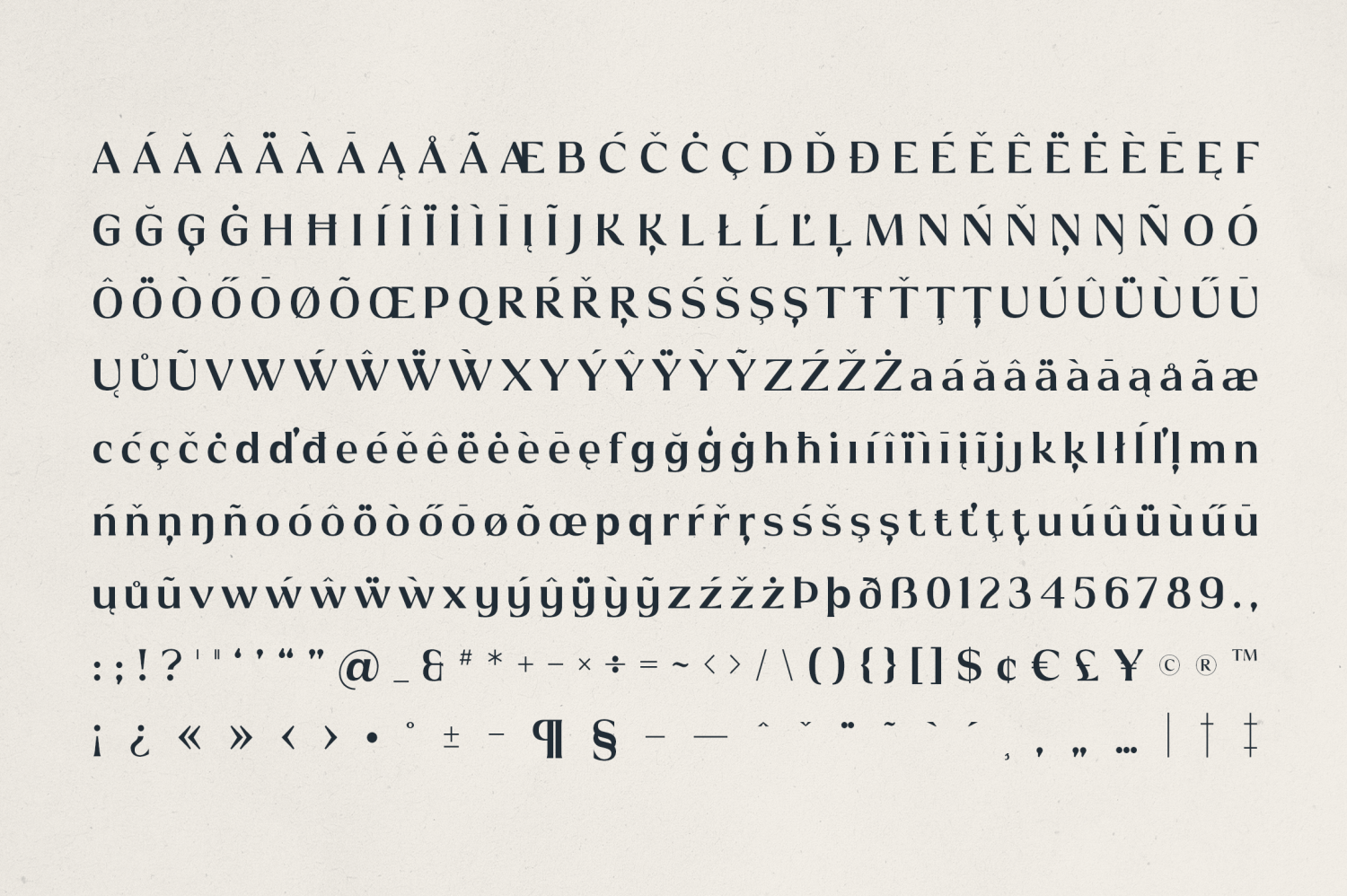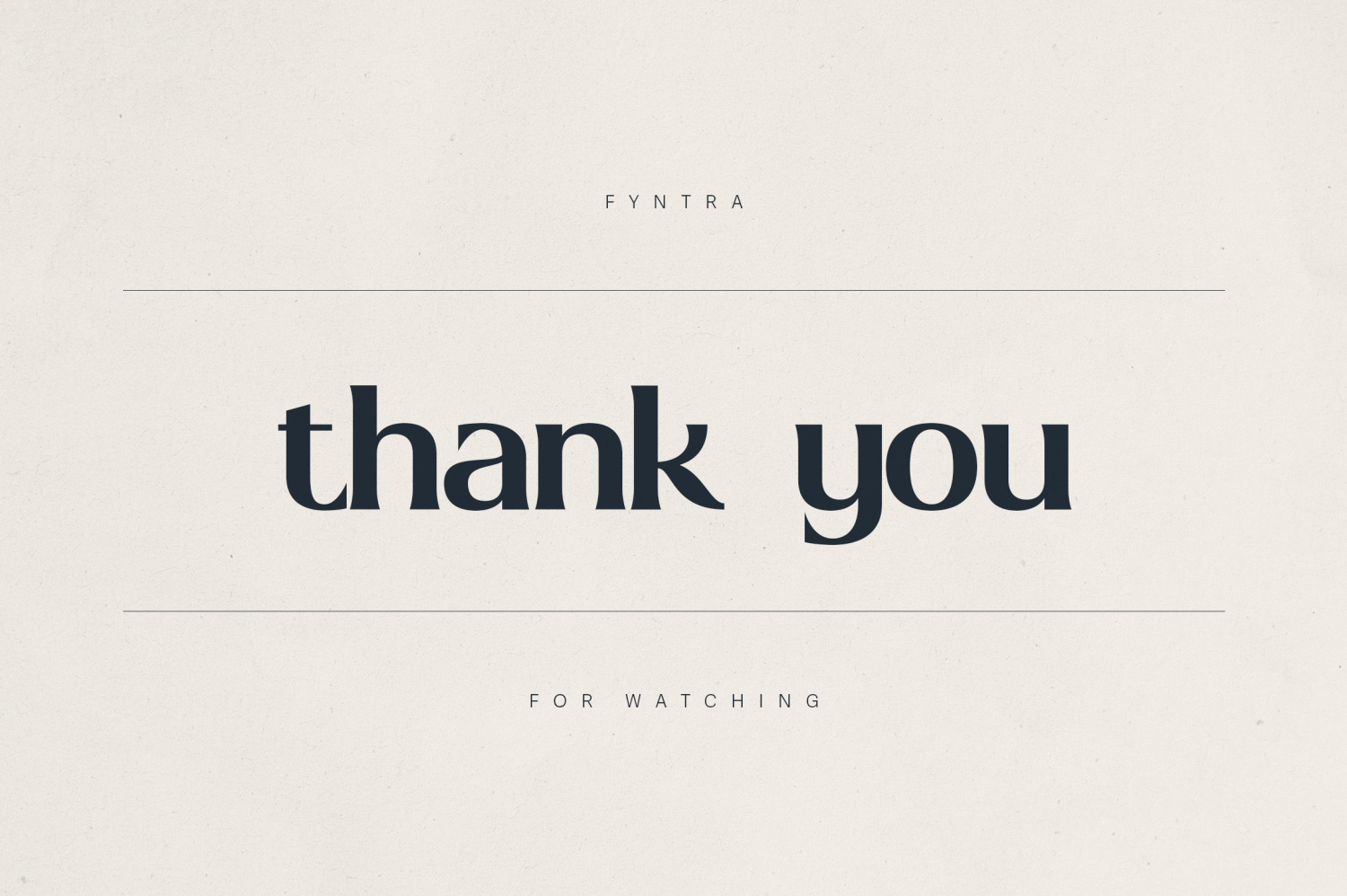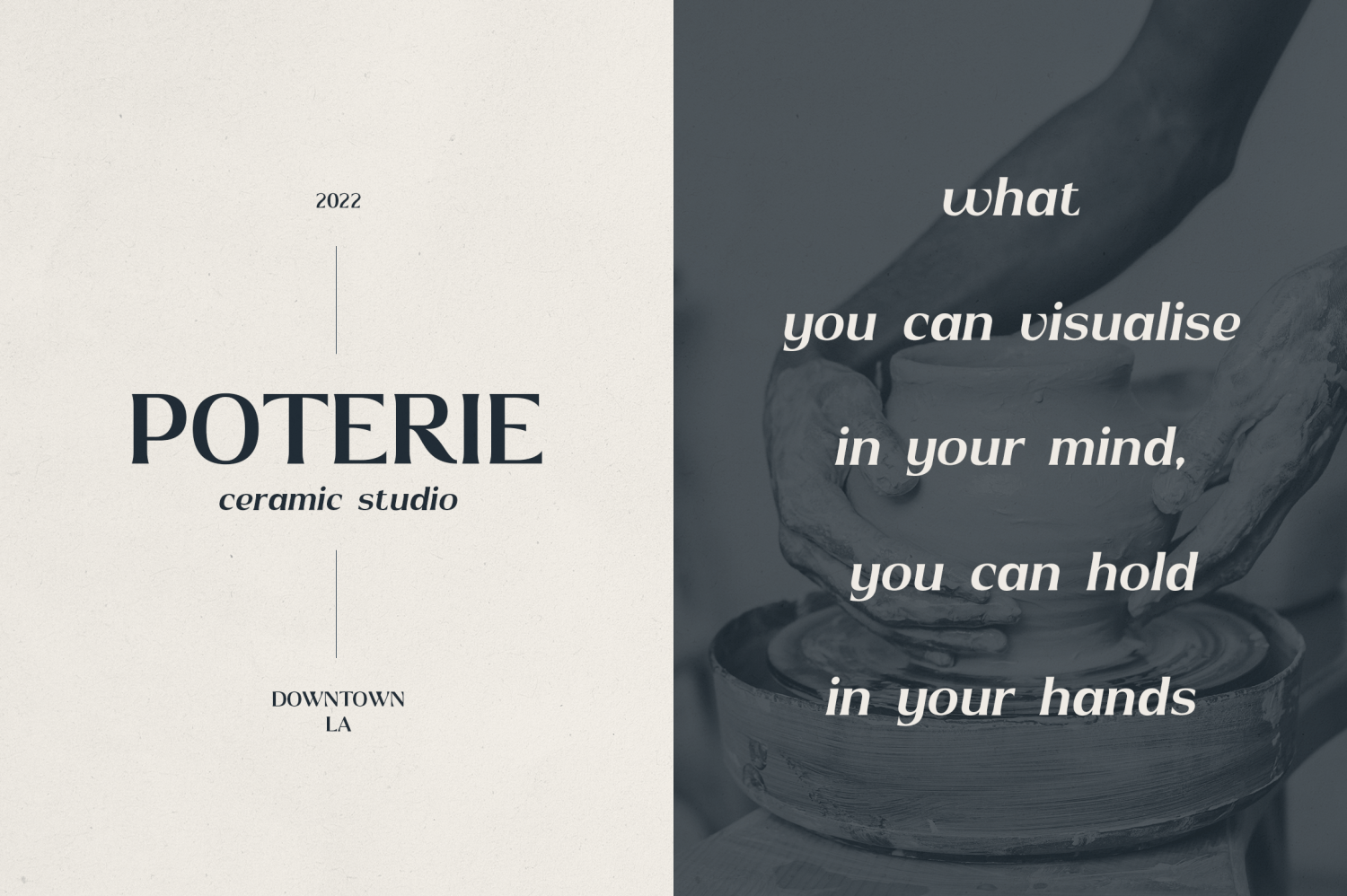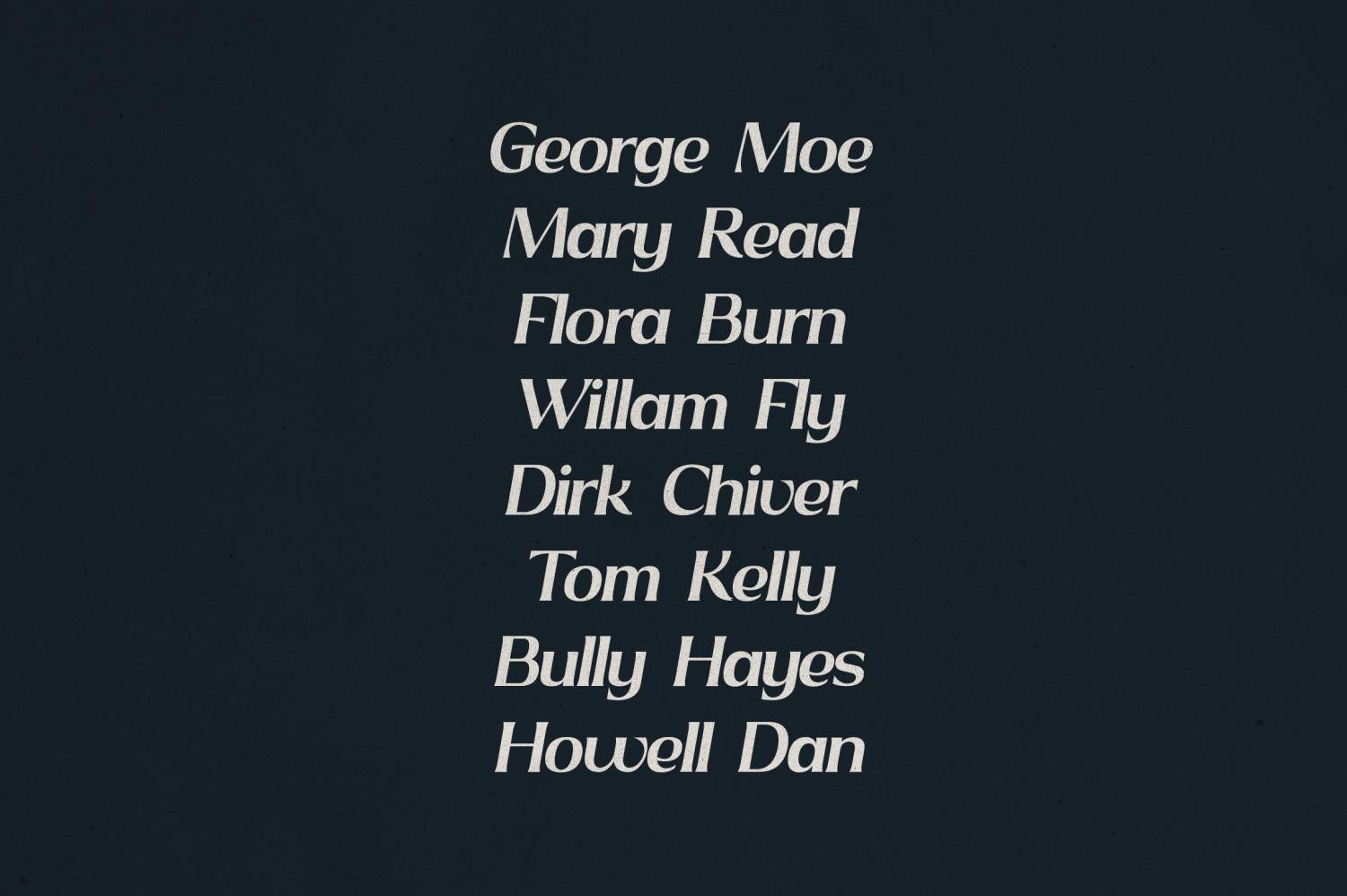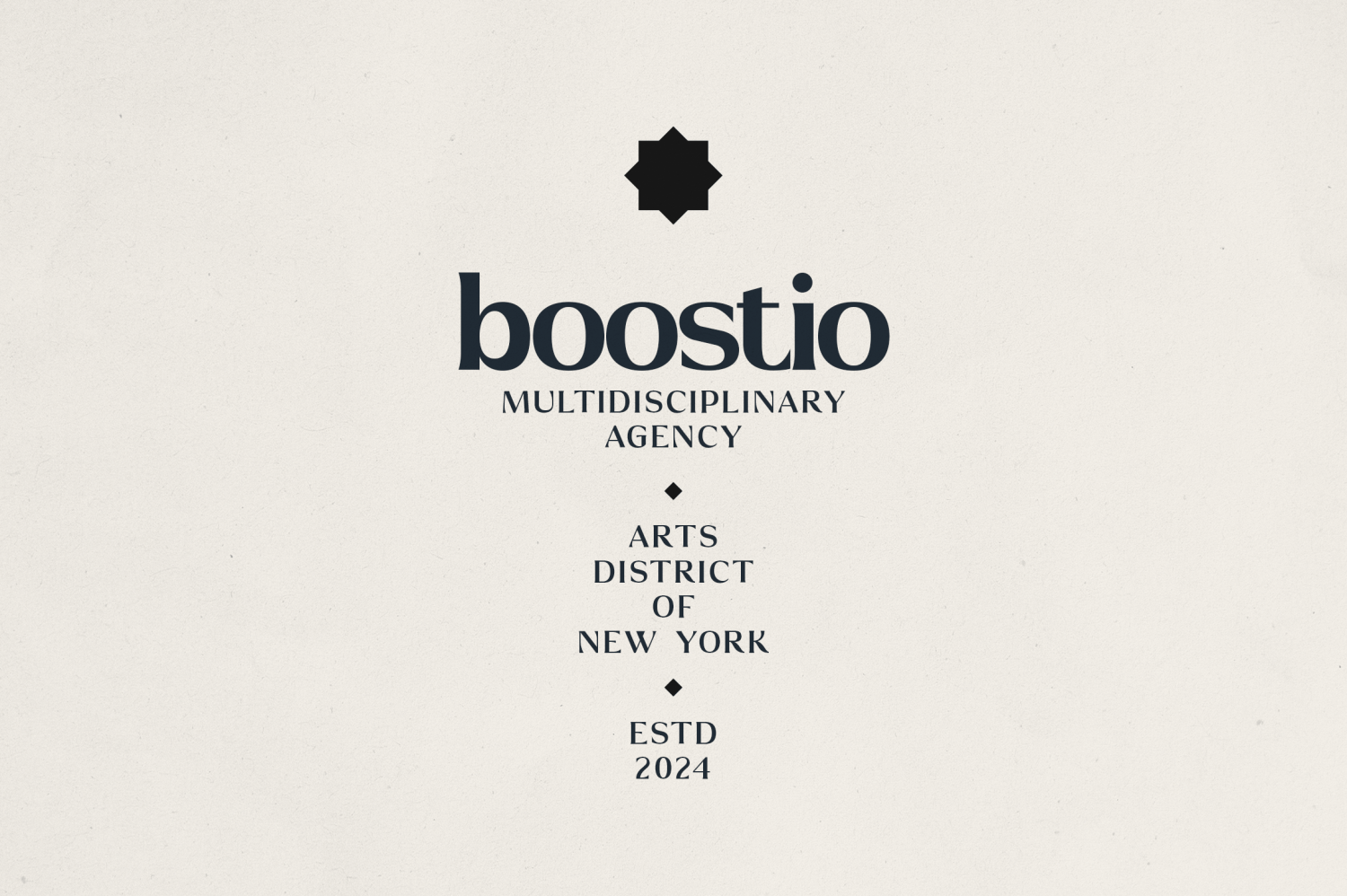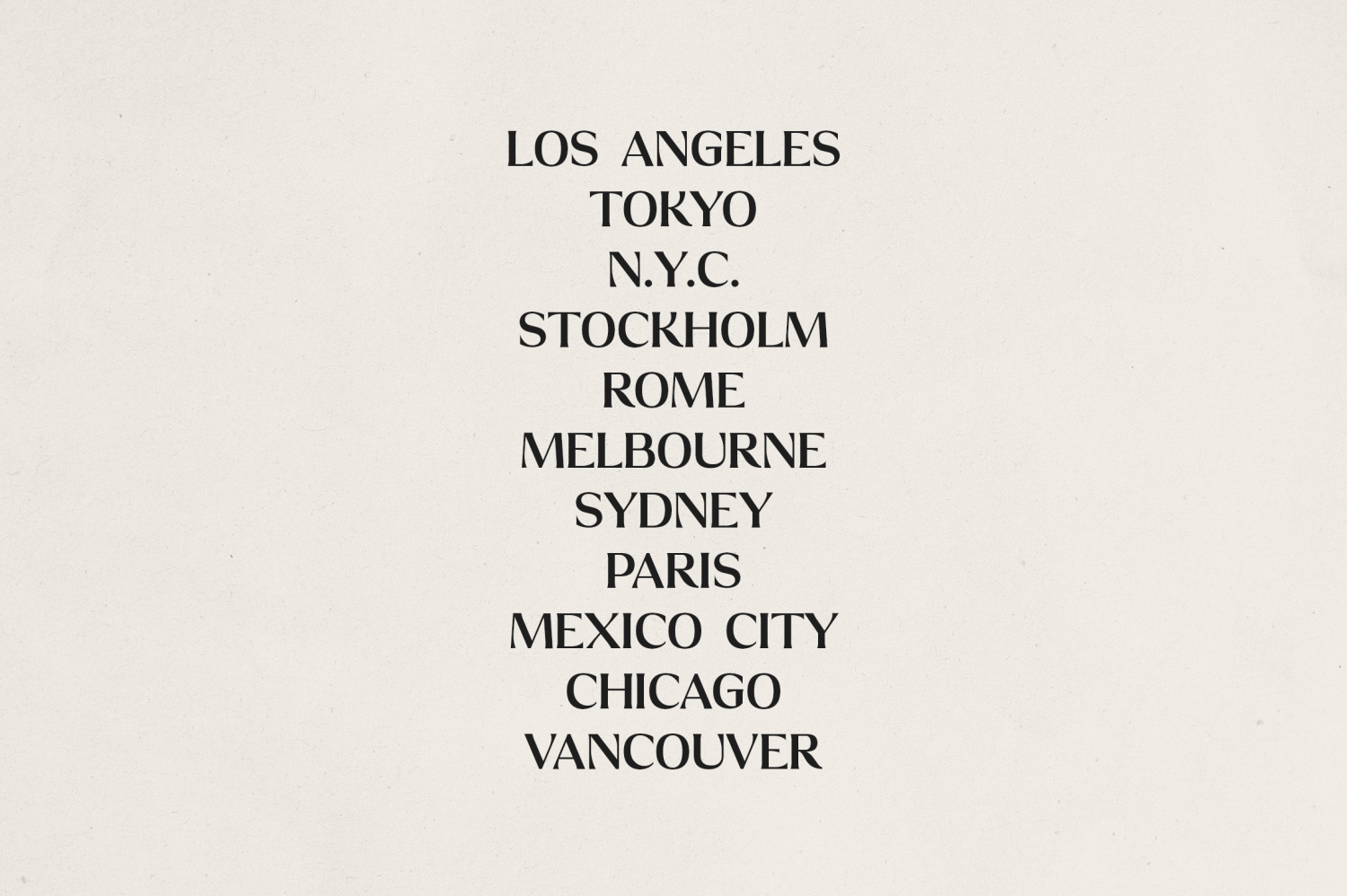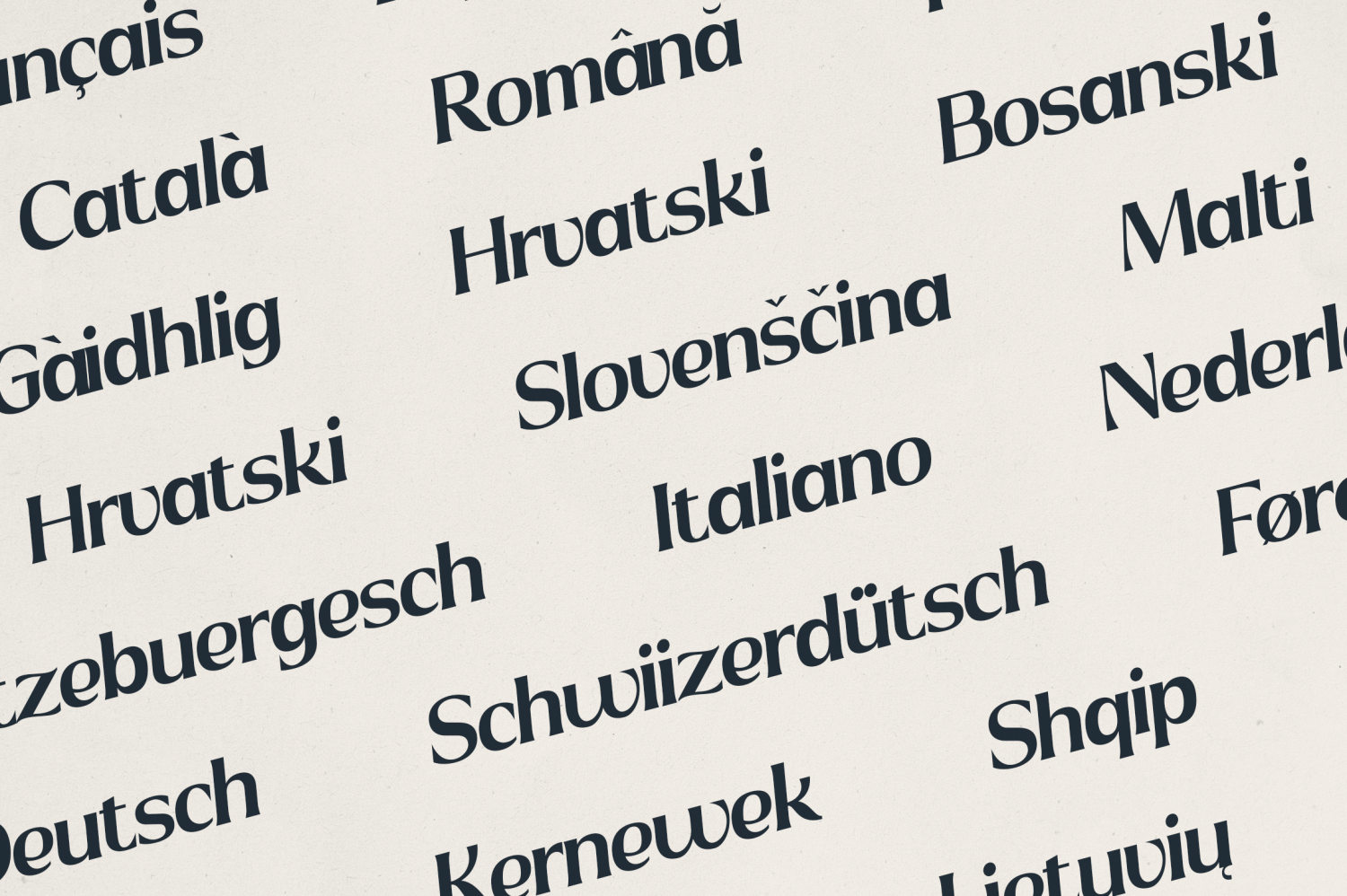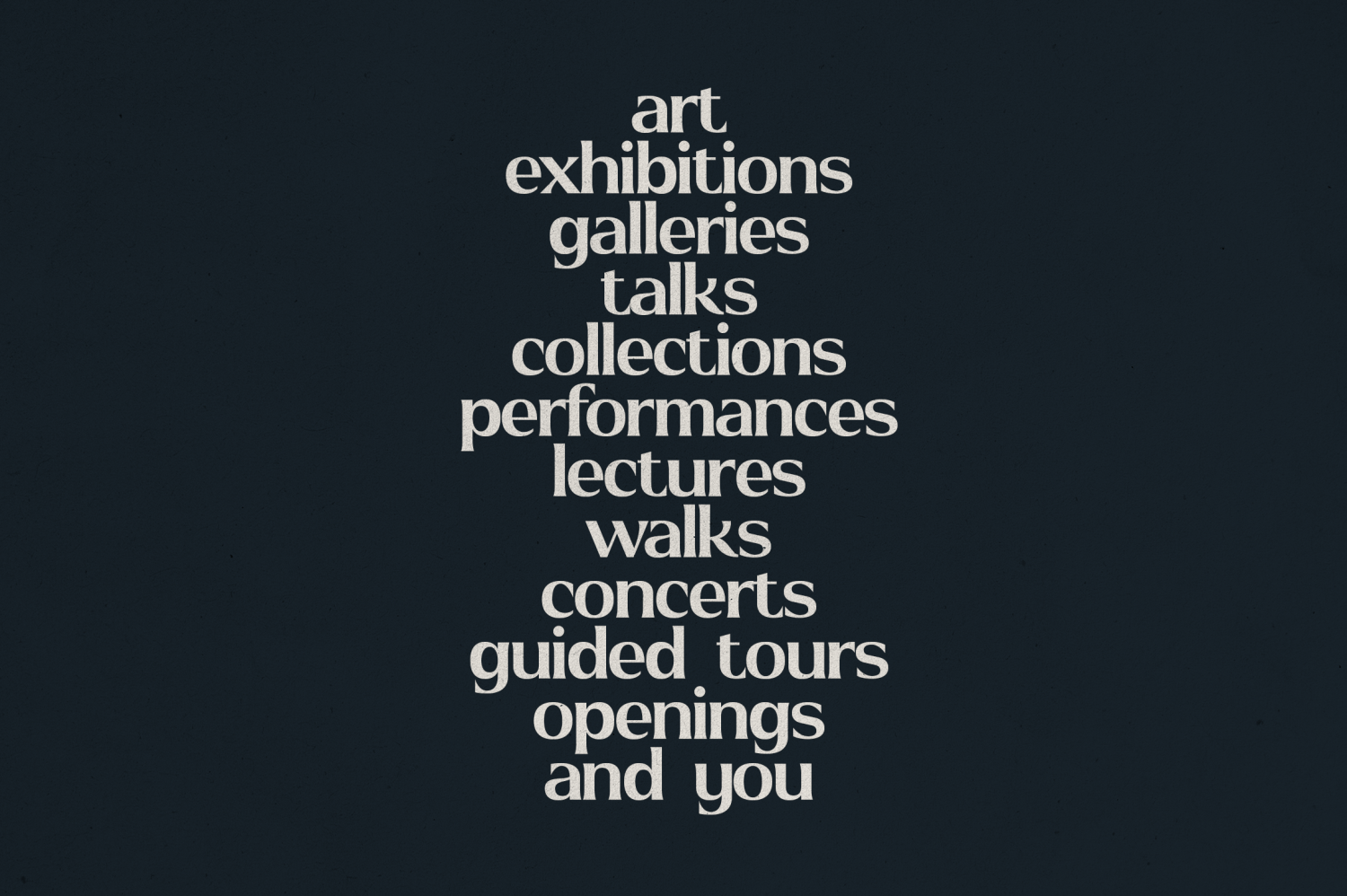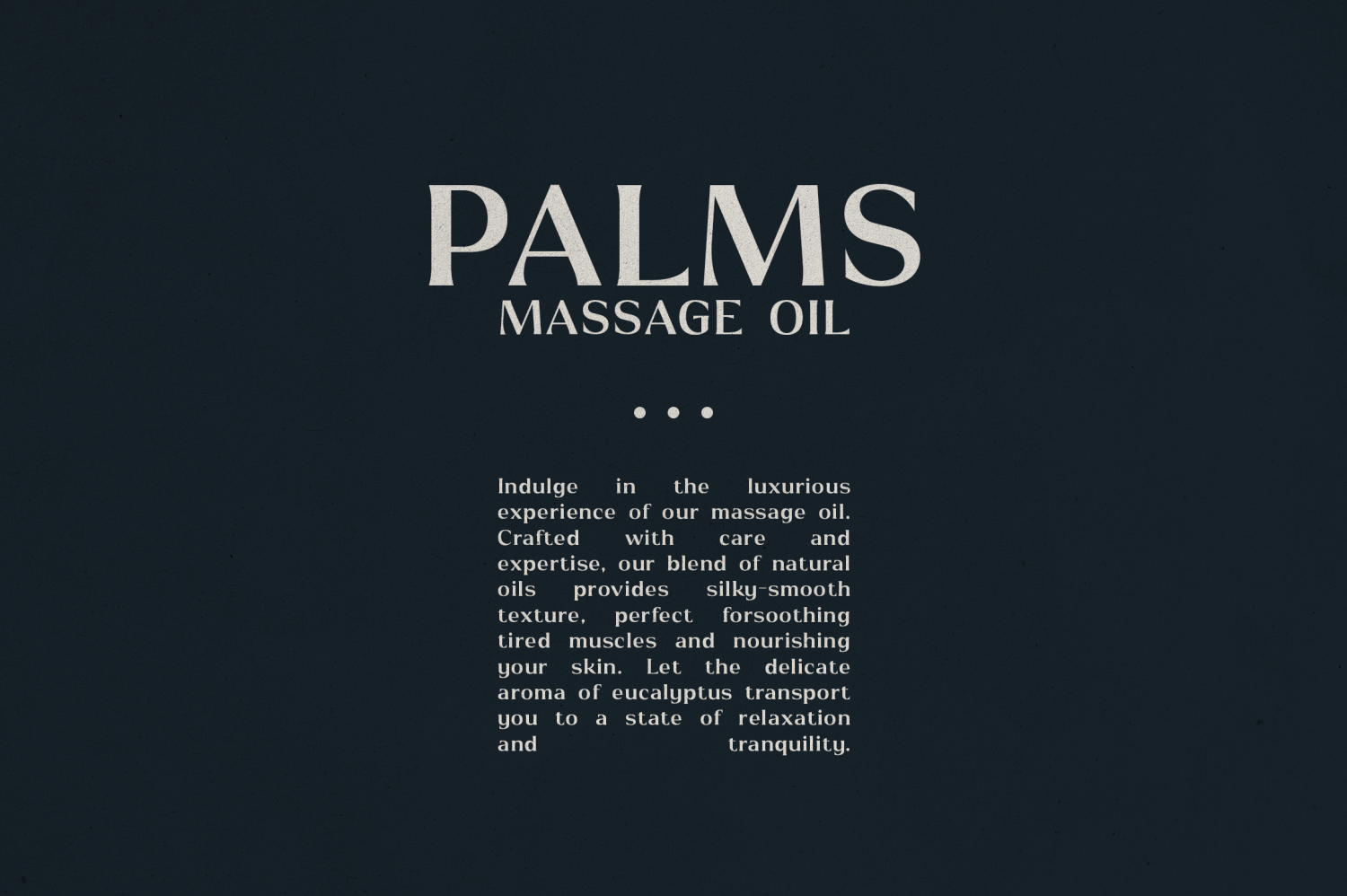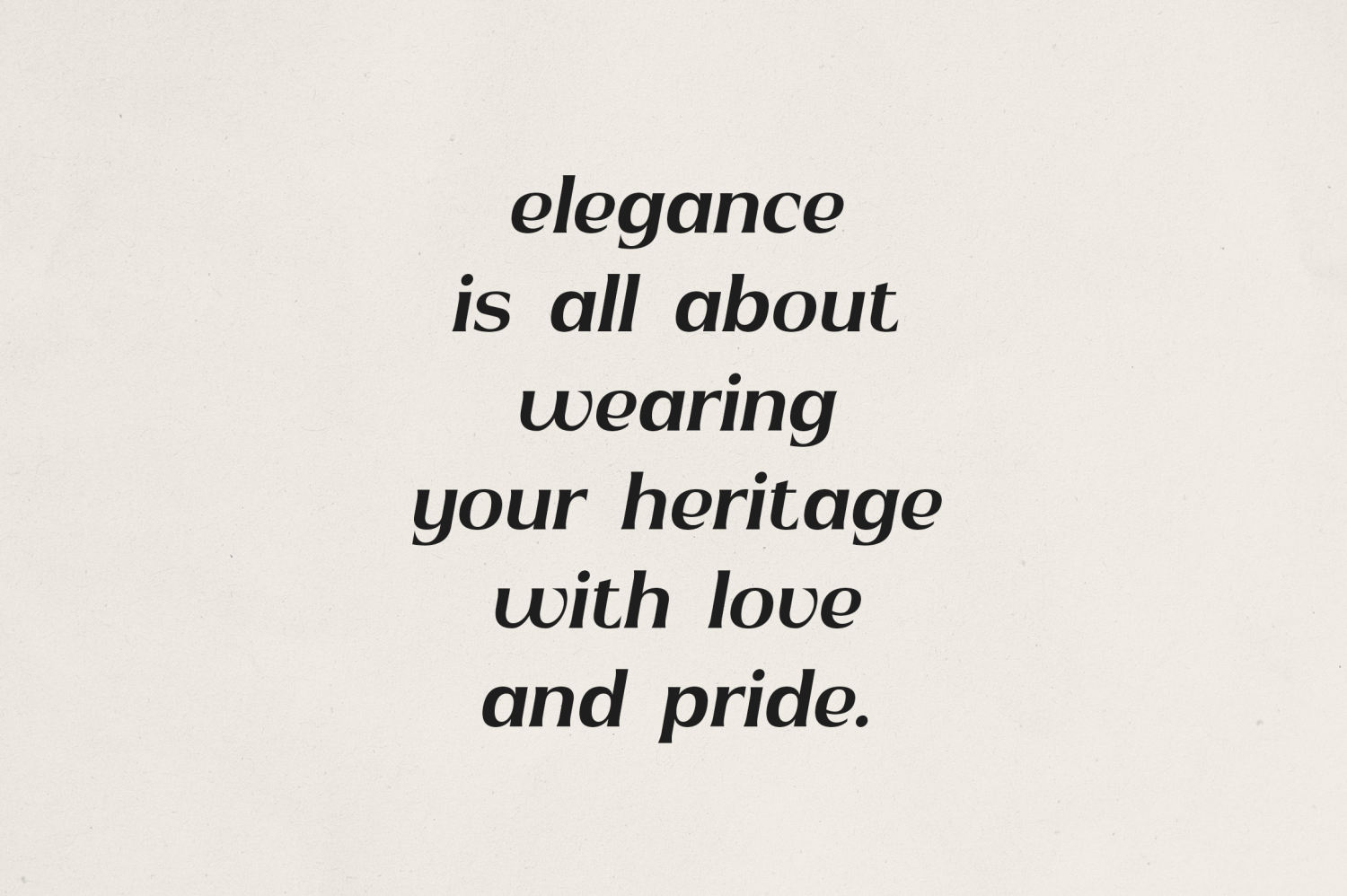
Fyntra
Fyntra – Modern Elegant Display Serif Font
Fyntra is a contemporary display serif font designed to bring refined elegance and confident personality to branding, editorial design, packaging, and high-end creative projects. With its distinctive letterforms—combining classic serifs, sleek curves, and sharp terminals—Fyntra stands out in headlines, logos, and artistic compositions.
This typeface supports over 85+ languages and includes a full set of upper and lowercase letters, numbers, punctuation and multilingual accents. Fyntra blends modern aesthetics with a timeless flair, making it ideal for creative agencies, fashion labels, luxury goods, beauty products, and cultural publications.
Whether you're designing a magazine cover, creating visual identity for a boutique brand, or crafting captivating social media graphics, Fyntra offers both character and versatility.